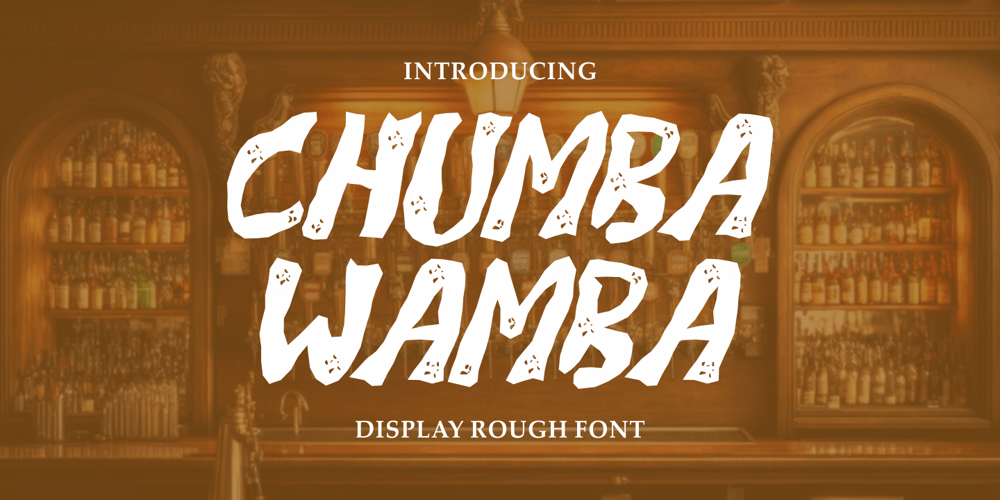
Chumba Wamba
Chumba Wamba font
Chumba Wamba Font Family was designed by Putra Novembria Candra Kusuma and published by Putracetol. Chumba Wamba contains 1 styles and family package options. Chumba Wamba – Display Rough Font is a captivating display typeface characterized by its intentionally messy and rough outlines, featuring textured details within each letterform. This font possesses a subtle classic flair, yet its thick and disheveled appearance imparts a touch of playfulness. Perfectly suited for logo design, posters, headlines, titles, printing designs, stickers, greeting cards, and business branding, Chumba Wamba adds a unique and eye-catching dimension to your creative projects.